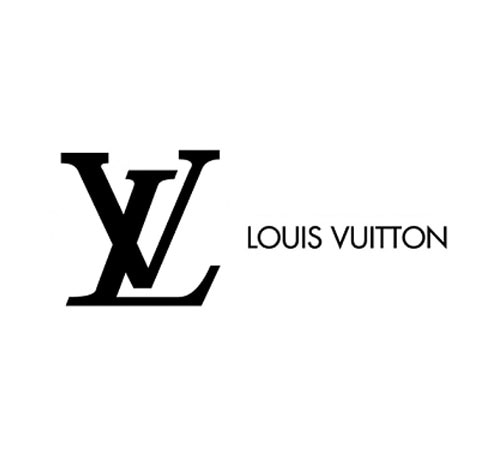
Vuitton persona is an all capital two color custom fontdesigned for louis vuitton malletier a french luxury fashion and leather goods company.
Louis vuitton script font. Handwriting art fonts festival louis vuitton logo font free download logo fonts pattern refining. Paul renner took the charge for designing it and releases it on linotype for the first time. Louis vuitton mon monogram. The fonts in use section features posts about fonts used in logos films tv shows video games books and more.
Louis vuitton piece was only the starting point to let fix the style who will be used to design several city names. This is a clean geometric font family that comes in a very precise textual arrangement. The font used for louis vuitton logo is futura medium which is a geometric sans serif font designed by paul renner and published by linotype. The monogram is currently a trendy home decorating tool that everybody may use.
Futura is used for the louis vuitton wordmark and text creating a nice visual balance with the two typefaces offseting each other. The typeface was designed to fulfil the needs of the special orders department mon monogramhand painted stripes and monograms are part of the vuitton heritage and it was natural to apply this to new technologies. Louis vuitton uses futura medium font lettering for their emblem. This font is an ideal preference for brands with an open modern picture.
Monograms are a classy branding element that showcase family style or your personal. Unique interlocking monogram font free monogram is a theme made overlapping or by combining at least two letters or any different graphemes. Louis vuitton font is the typeface being using in its logo. On their website georgia is also used for text with austin roman and lv clemence used sporadically creating a slightly confusing typographical hierarchy.